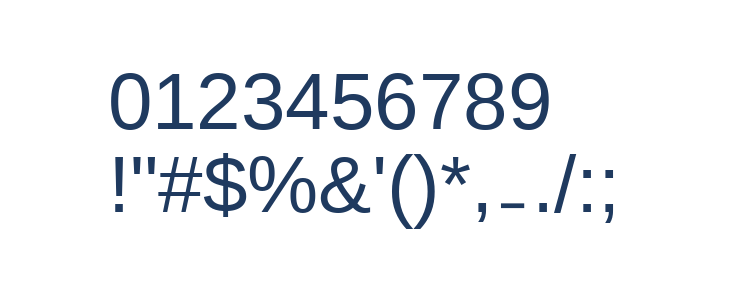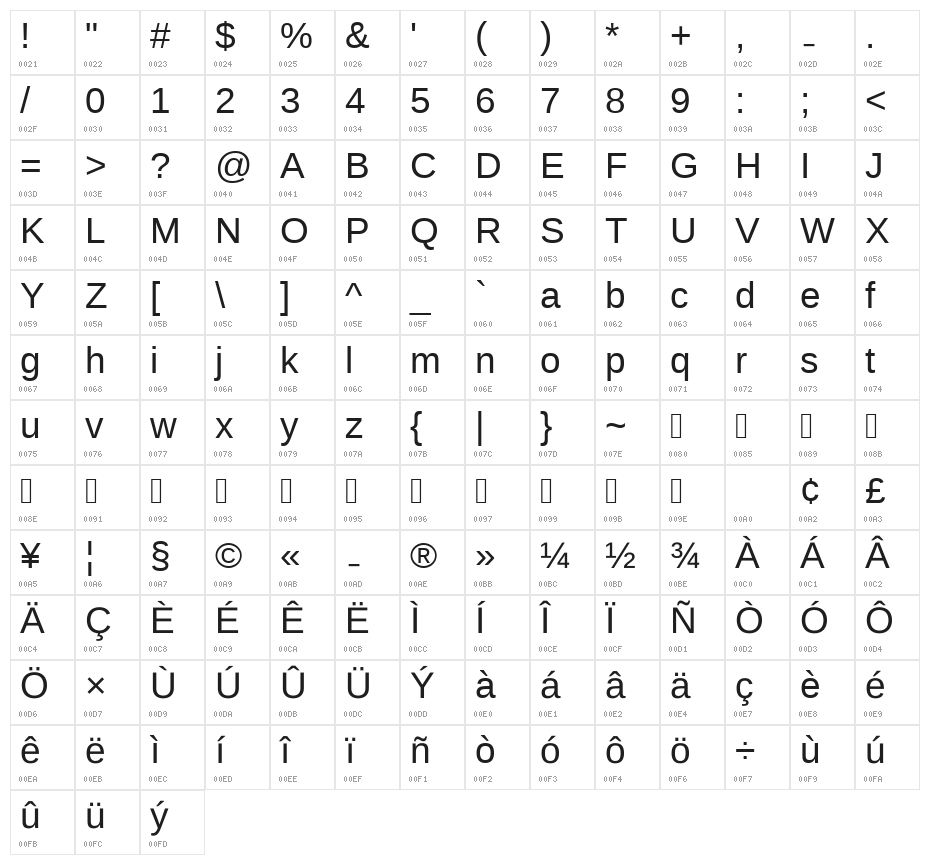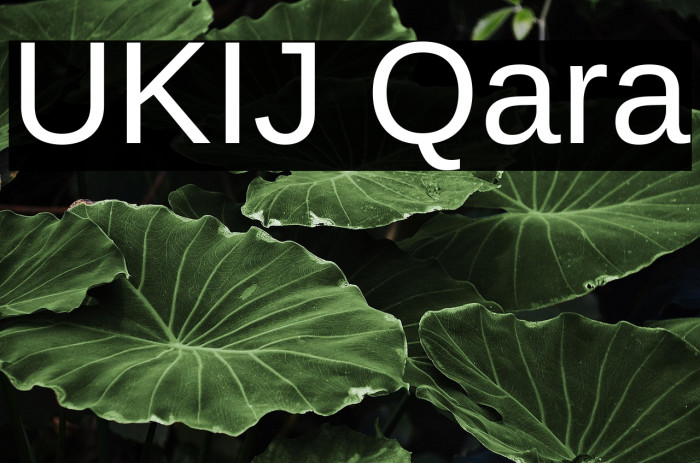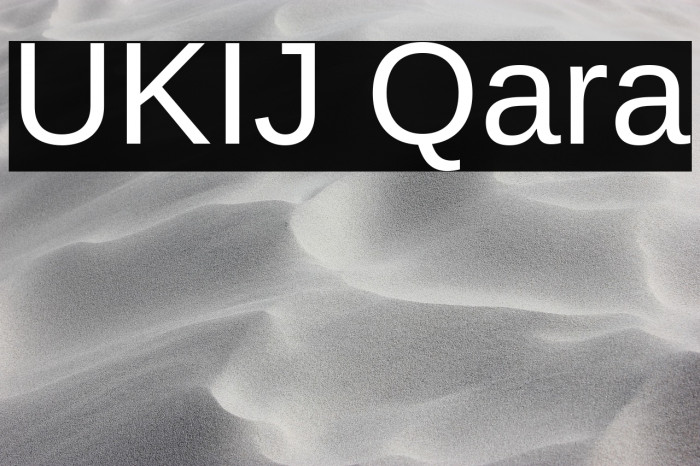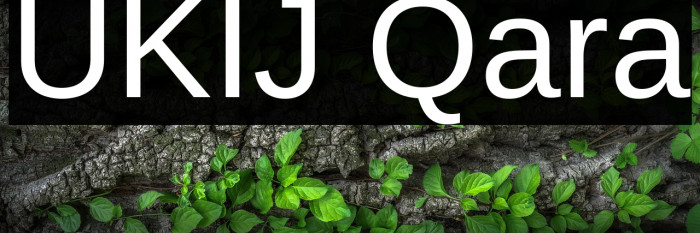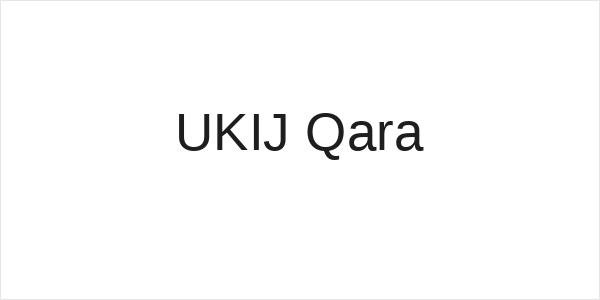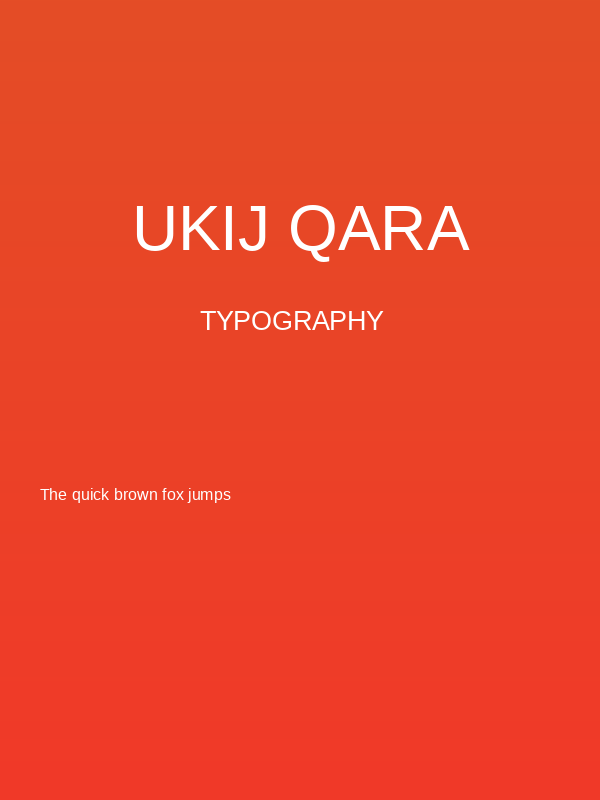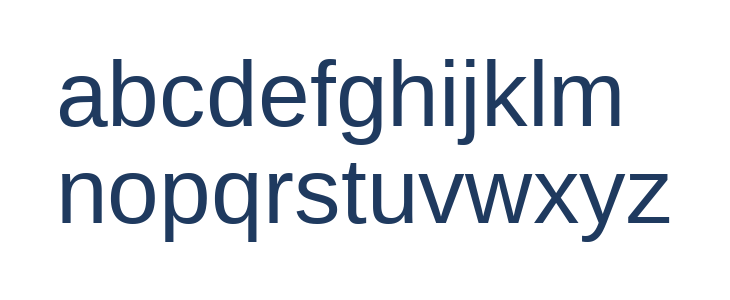
UKIJ Qara Font
UKIJ Qara Description
This font presents a clean and modern sans-serif style, characterized by its simplicity and readability. The letters are evenly spaced with a consistent stroke width, offering a balanced and harmonious appearance. The uppercase and lowercase letters maintain a uniform height, contributing to its legibility. The numerals are clear and distinct, making them suitable for various applications. Special characters are well-defined, enhancing the font's versatility. Its straightforward design makes it ideal for digital and print media, ensuring clarity and professionalism.
| Proposed Projects | Ideal for corporate branding, website design, digital content, and print materials such as brochures and business cards. |